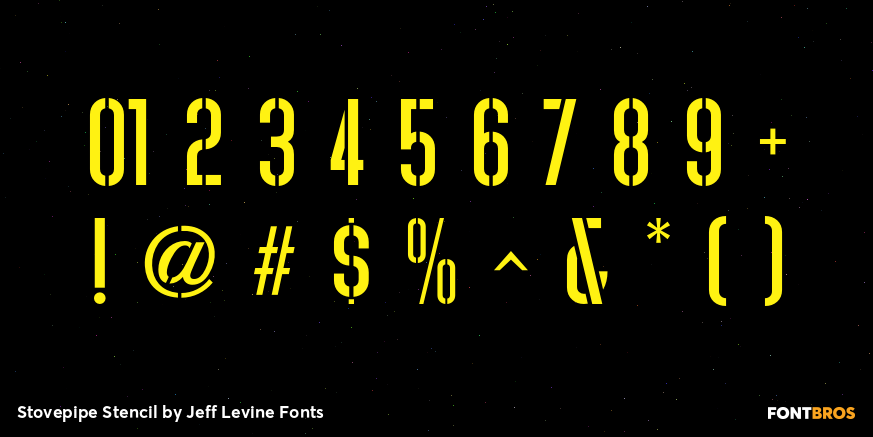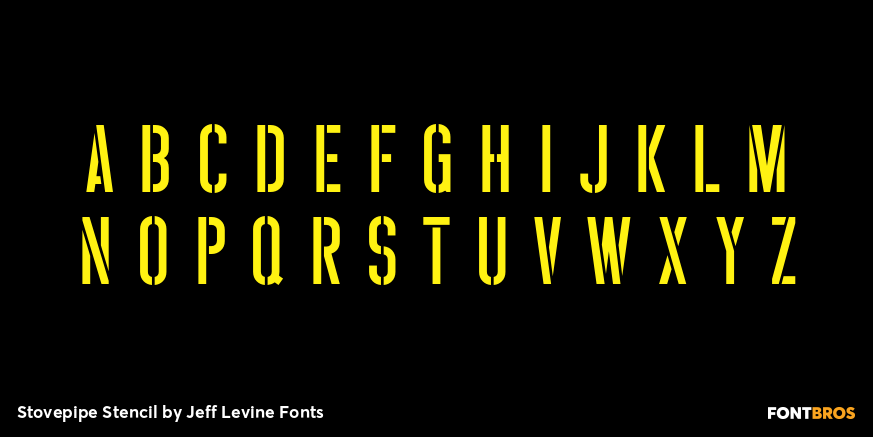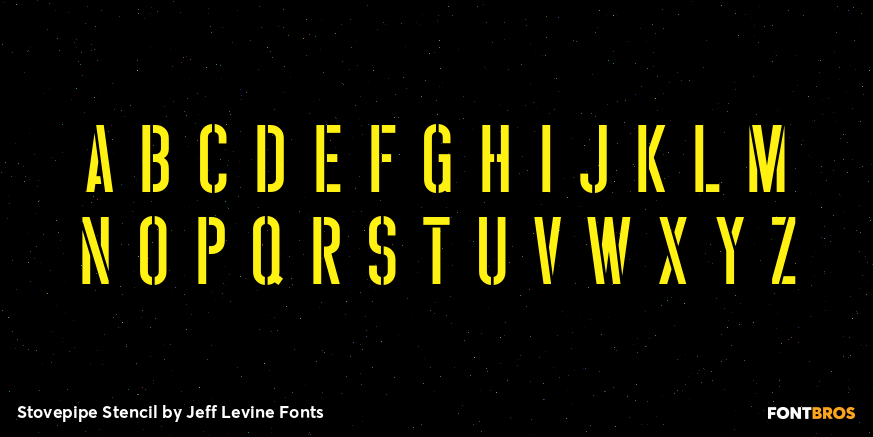
Stovepipe Stencil
Stovepipe Stencil JNL was not directly designed from a vintage source, but it does draw its influences from classic sans serif lettering of the past.
Even its name borrows (somewhat gratuitously) from the 'stovepipe' lettering so popular with sign painters. True stovepipe letters tend to be squarer with rounded corners, but the name has also been loosely associated with some tall, condensed type styles.
The typeface is available in both regular and oblique versions.